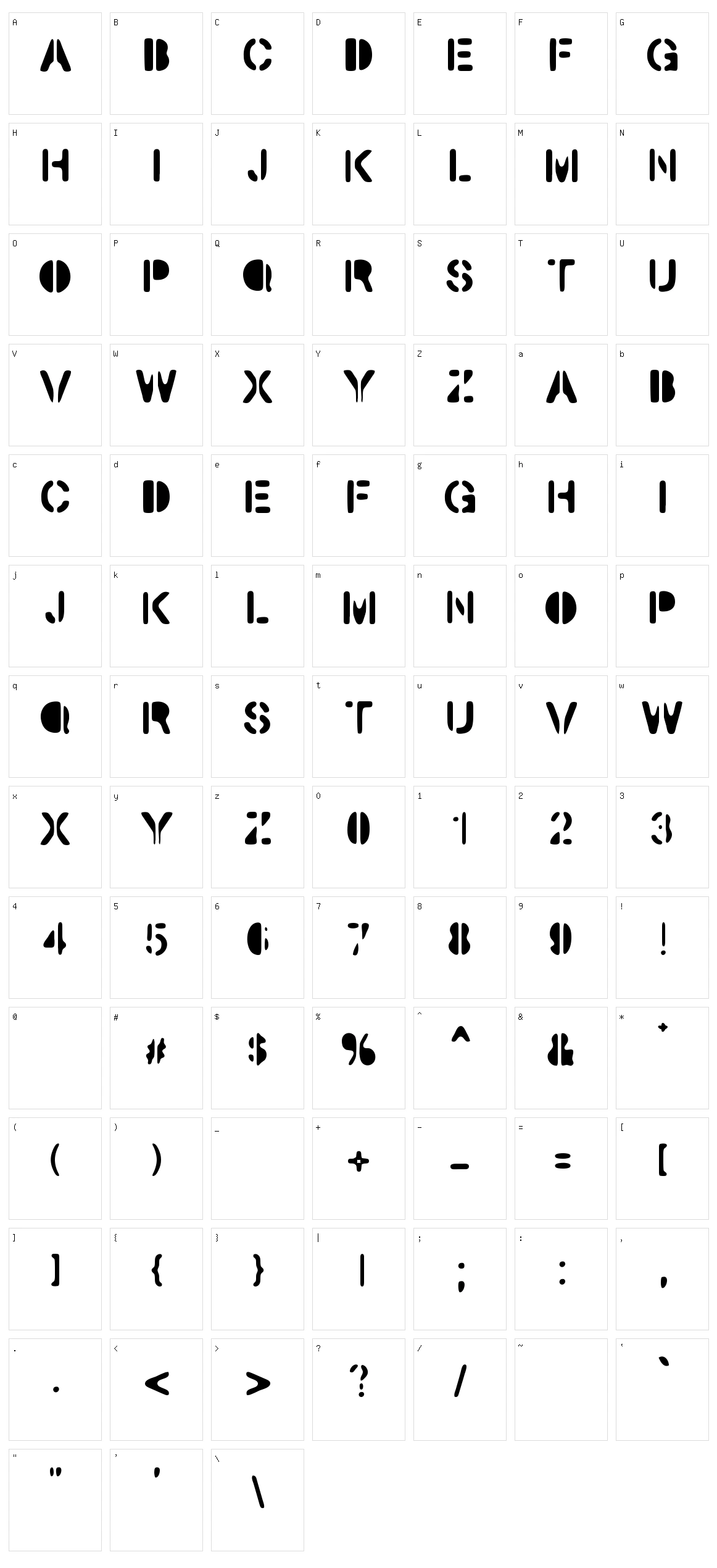
The free font The Second World War is carefully designed by Woodcutter, showcasing a thoughtful balance of creativity and usability and falls under the Stencil font style. When you download the ZIP file, it contains only 17.75 KB of font files, making it lightweight and quick to download. Please review the license details below to understand permitted usage and distribution rights. If license information is not available, we recommend using this font for personal projects only or contacting the author directly for commercial usage permissions.